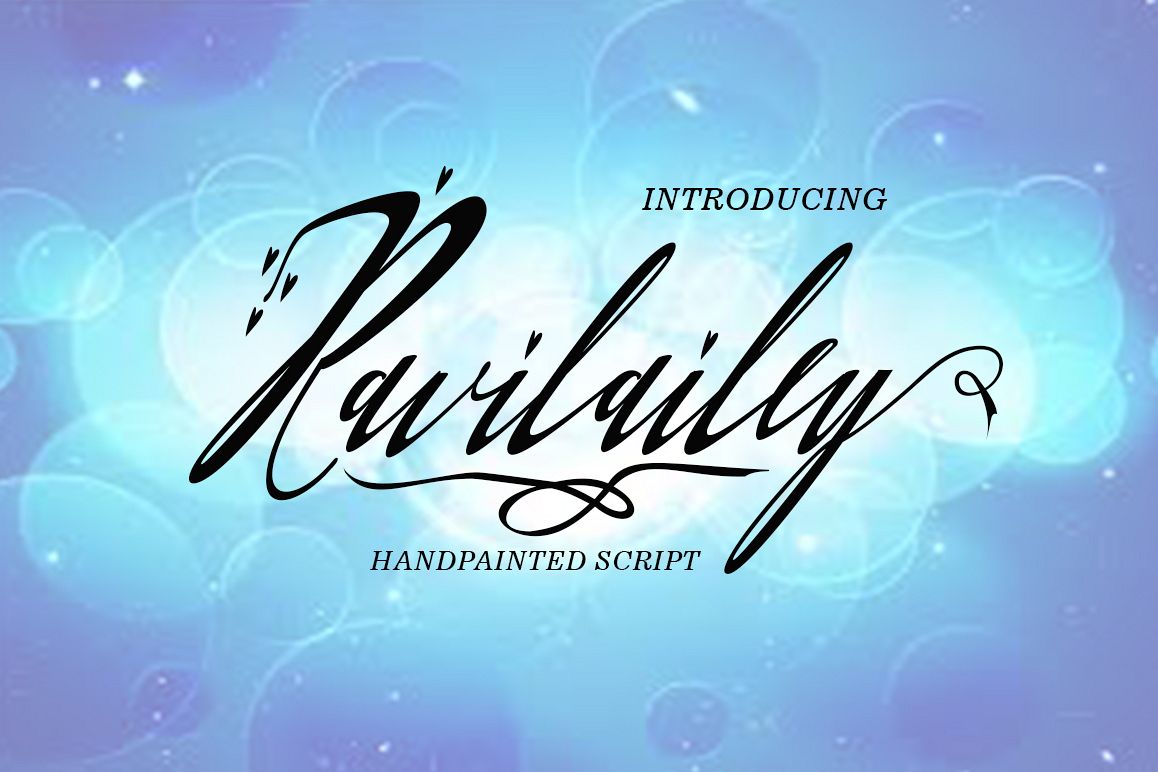
Ravilailey
Ravilailey-Regular
Ravilailey is a font bold, so, brush script that is beautiful and unique, it is a model of modern calligraphy typefaces, in combination with a calligraphy writing style.
The Features of this fonts is;
* Contextual Alternates
* Standart ligatures
* Discretionary ligatures
* Stylistic Alternates
* Stylistic sets